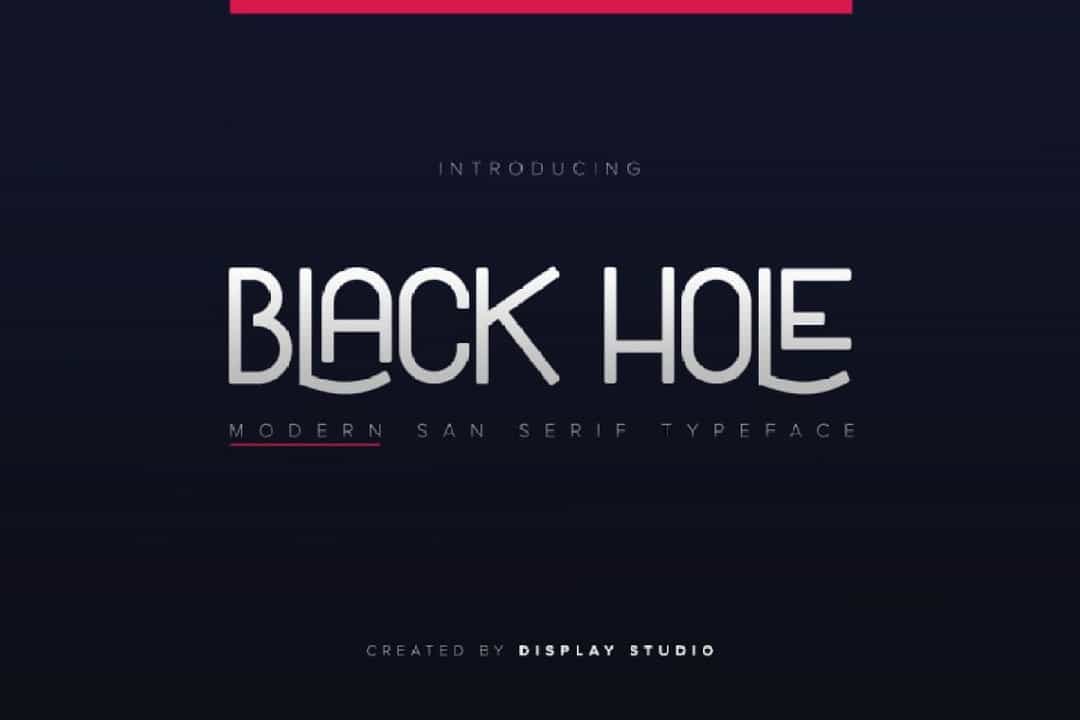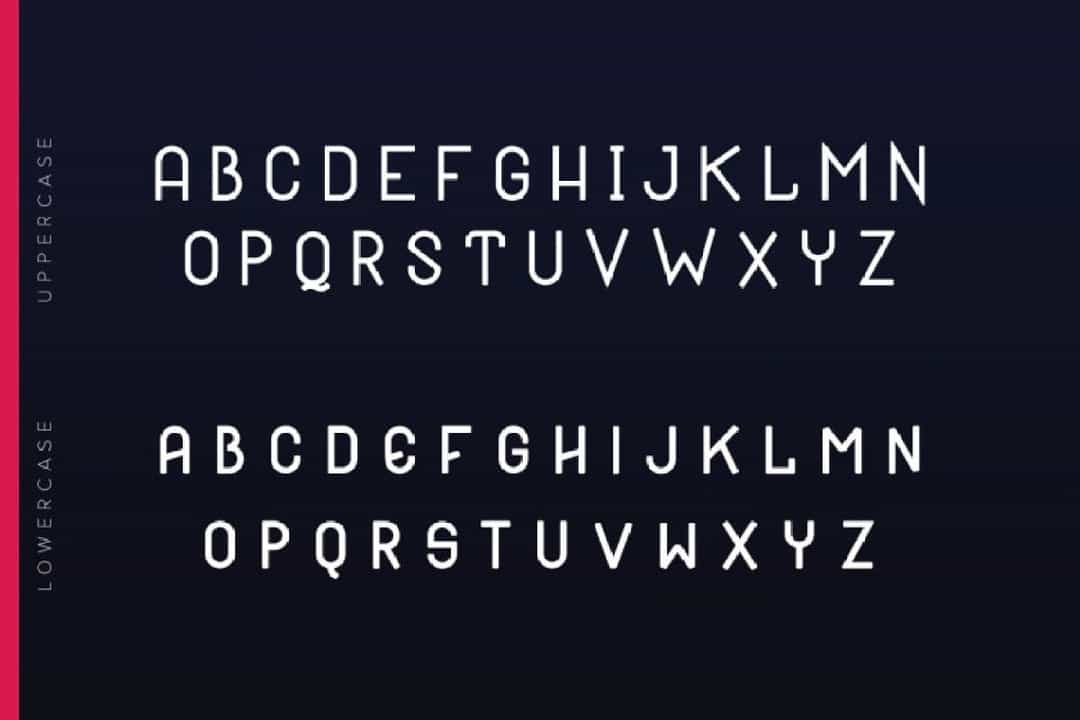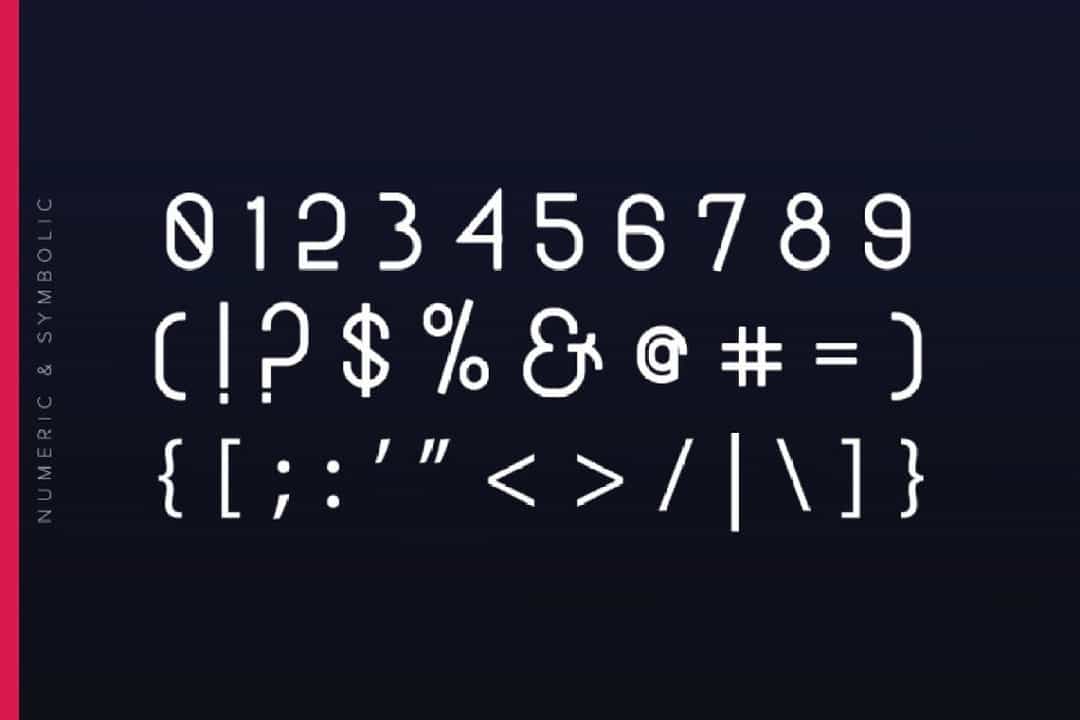
Discover Black Hole Font, part of the Sans Serif Display collection—a versatile and unique font perfect for adding a personal touch to your projects. Download it for free and enjoy crafting designs with style, from invitations to social media posts. This font is available exclusively for personal use, giving you the freedom to create without limits. Unlock your creativity with Black Hole Font today!
The Black Hole can be described as a contemporary Sans Serif font. Ideal for invitations, brand logos cards, greeting cards or any other design project; its multilingual feature and range of styles add further aesthetic enhancement.